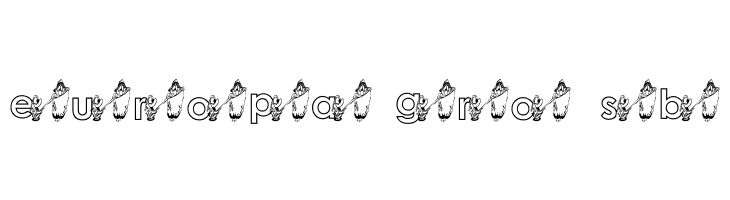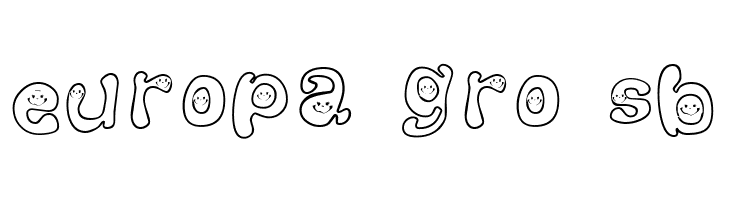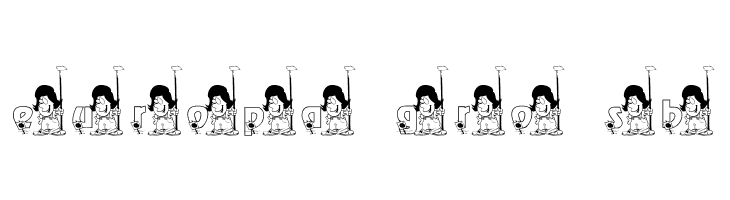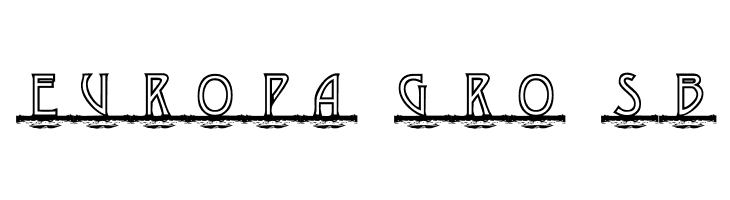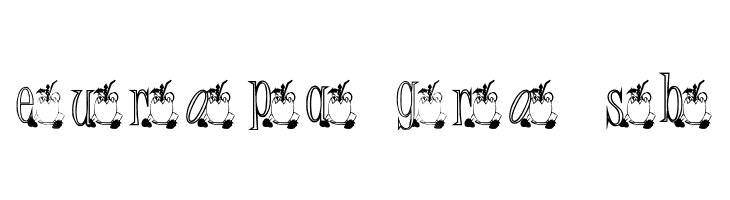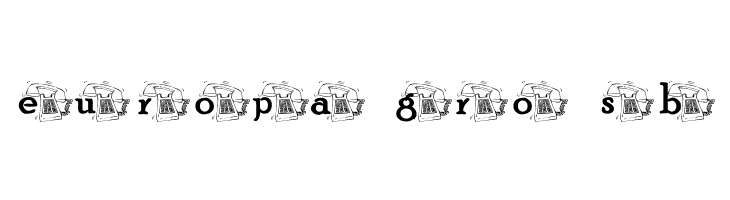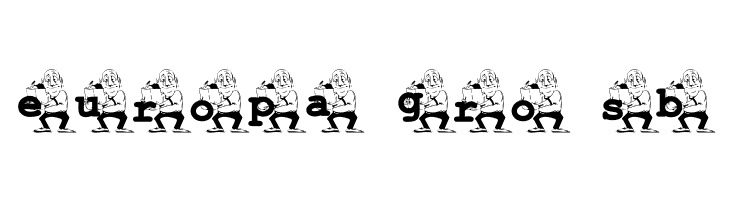
A decorative font with intricate fish illustrations integrated into each character.
A decorative font with letters growing from flower pots, ideal for playful and nature-themed designs.
A whimsical, cartoon-inspired decorative font with playful illustrations.
A playful, decorative font with cartoon-like characters integrated into each letter.
A whimsical decorative font with garden-themed illustrations in each character.
A decorative font with floral embellishments and a vintage, whimsical style.
A decorative font with floral embellishments and bold, framed special characters.
A playful, decorative font with letters embedded in cartoonish characters.
A whimsical, decorative font with cartoon characters embedded in each letter.